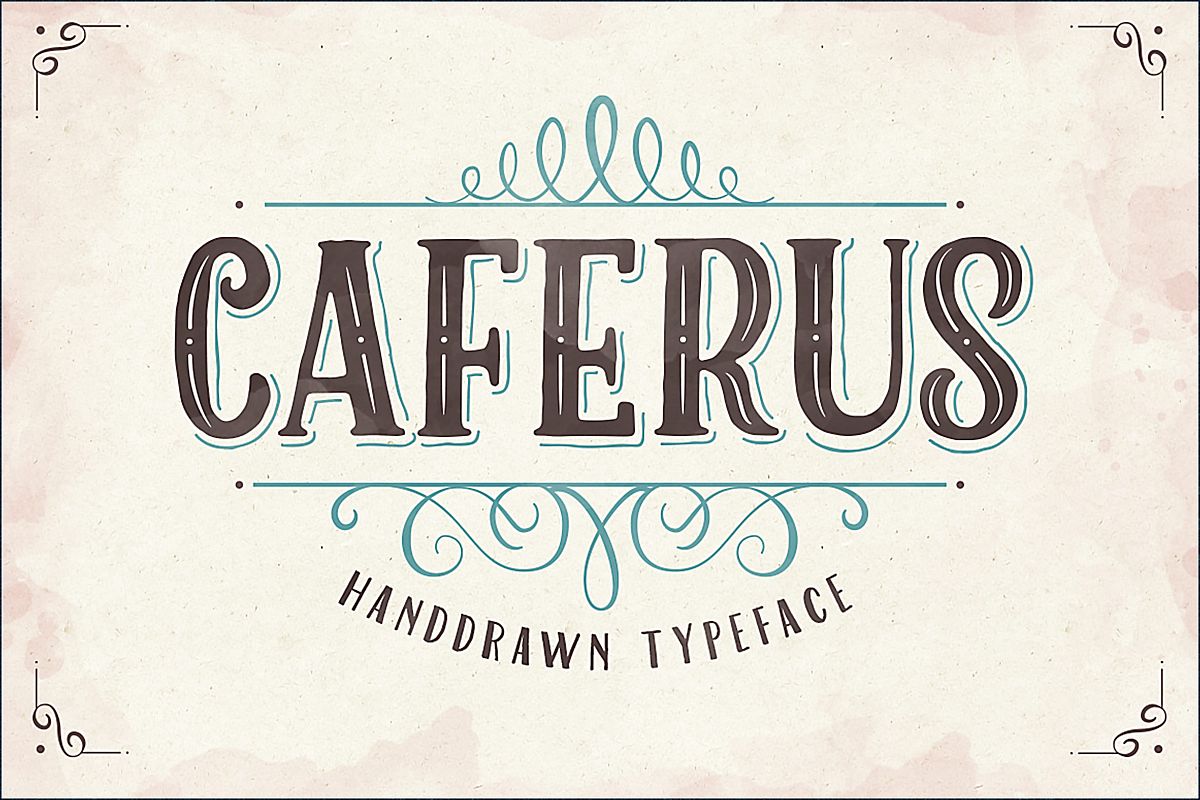
Caferus
Hello There, Here is our second product, It's called Caferus. Caferus inspired by many lettering on the cafe, and it's specially designed for the cafe and restaurant who use vintage concept, for lettering, logo, posters, t-shirt, etc. Caferus also give you more easier with layouting because you'll have : All the fonts are OTF version
• Caferus Layer Family
• Caferus Normal (Sans-serif Bold)
• Caferus Slim Regular (Sans-serif Light)
• Caferus Regular (Serif)
• Caferus Ornament Regular ( OTF & Vector eps CS3 )